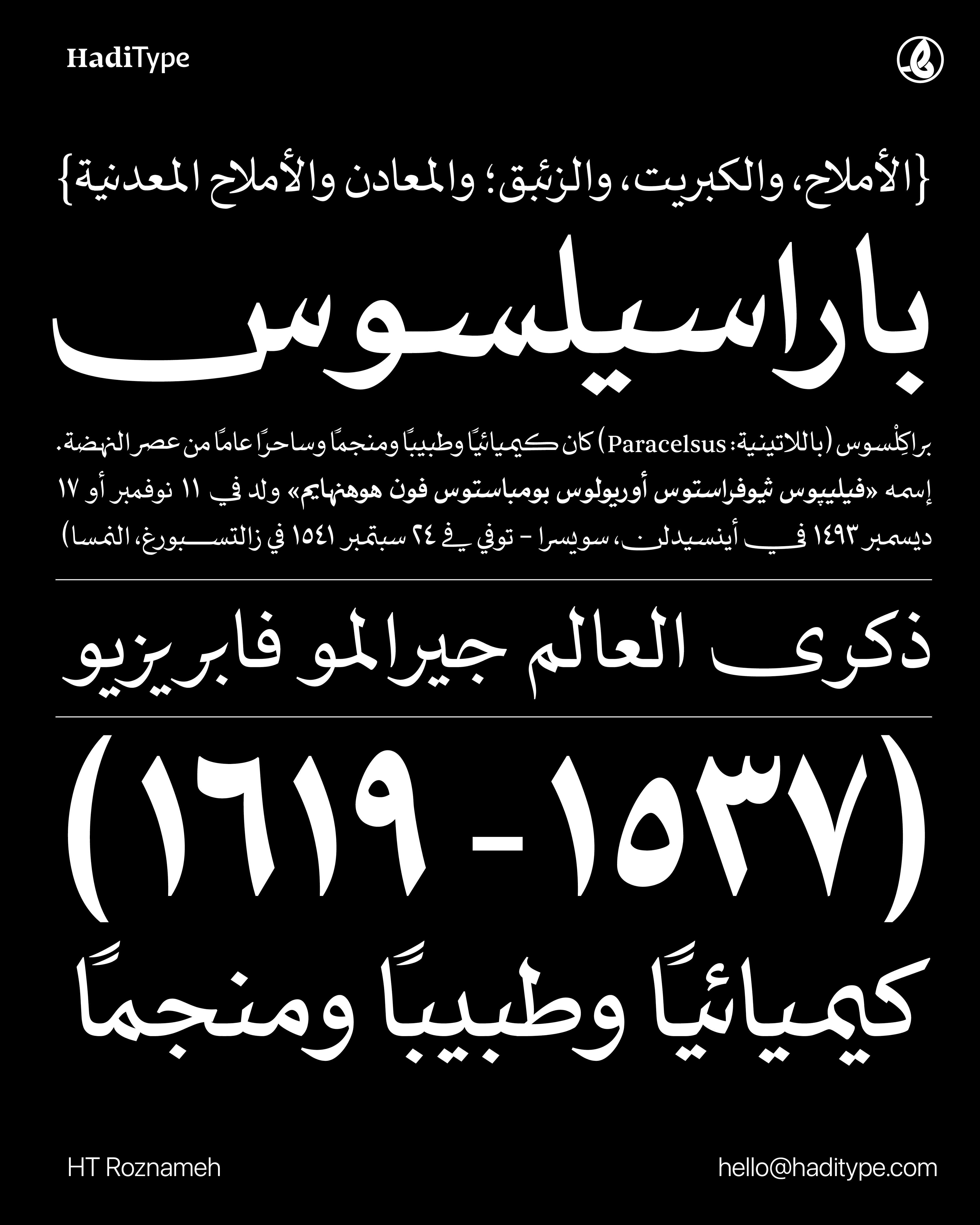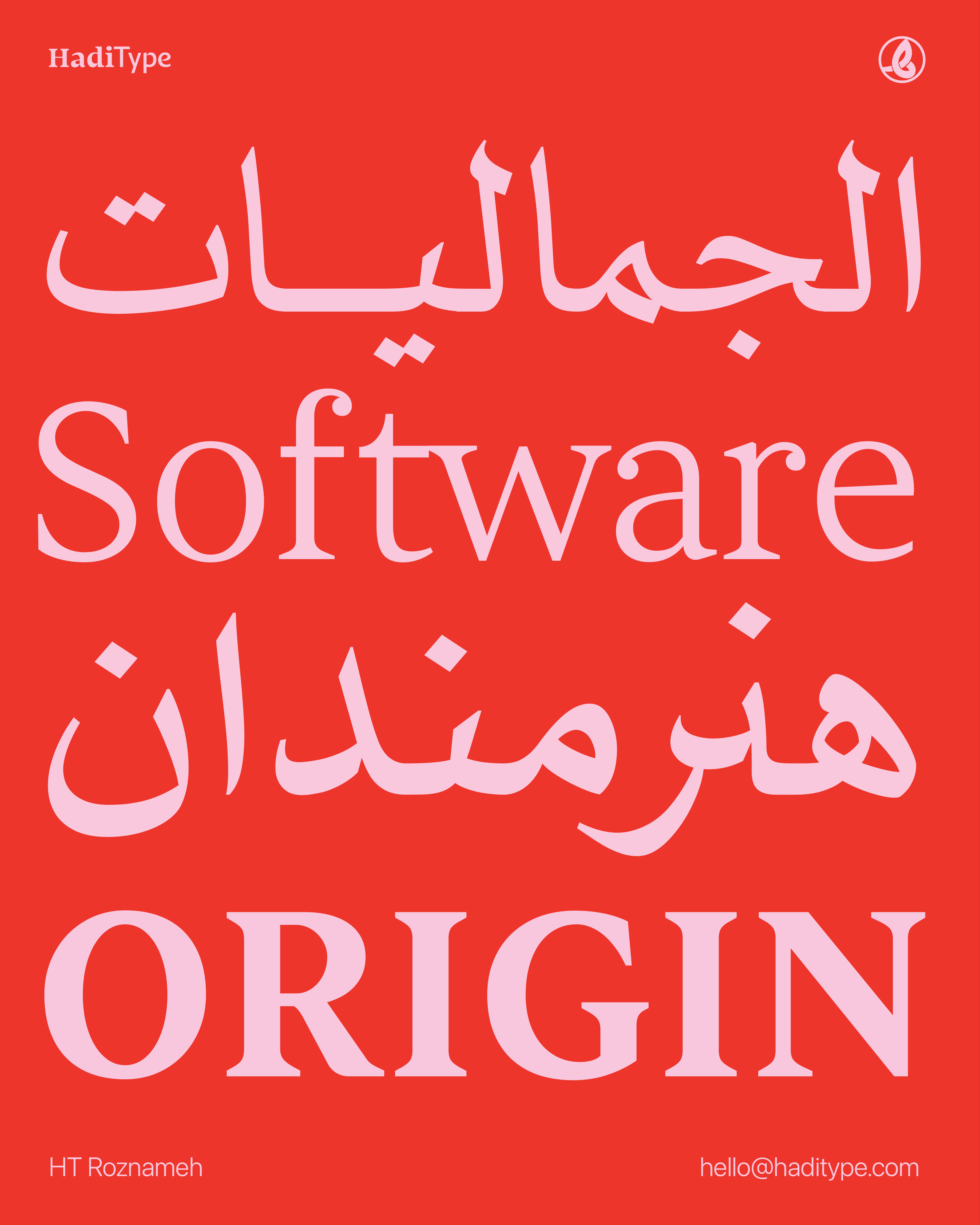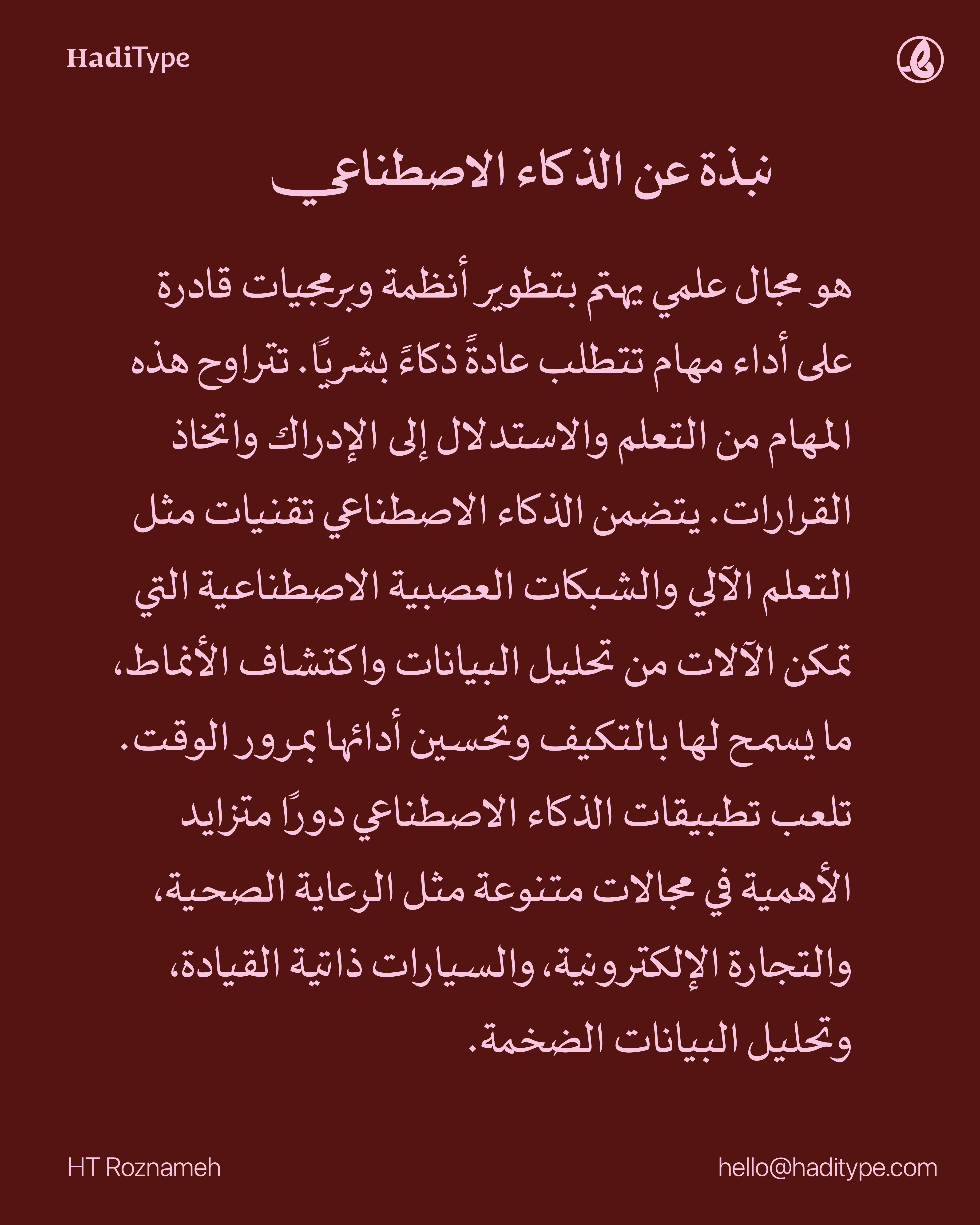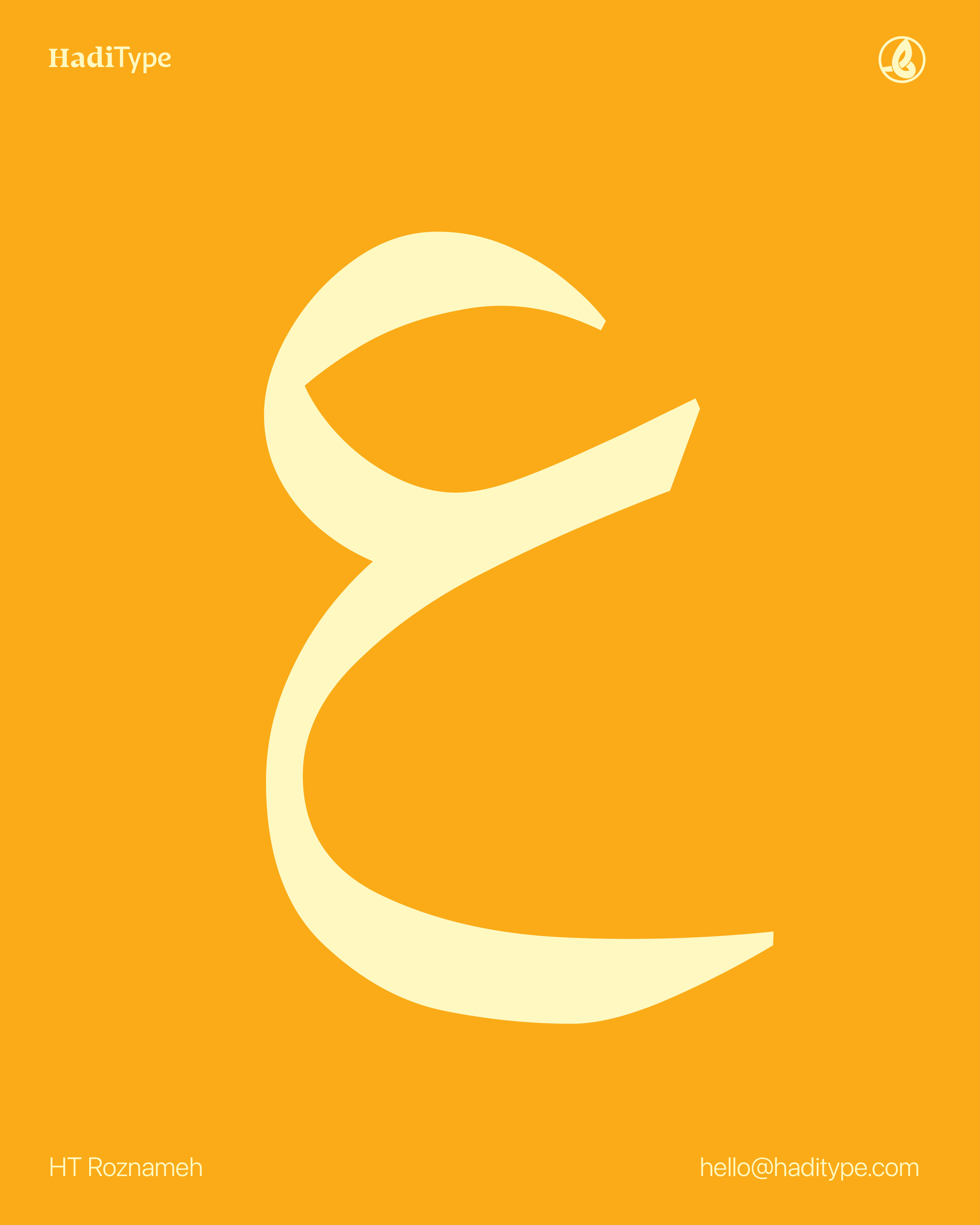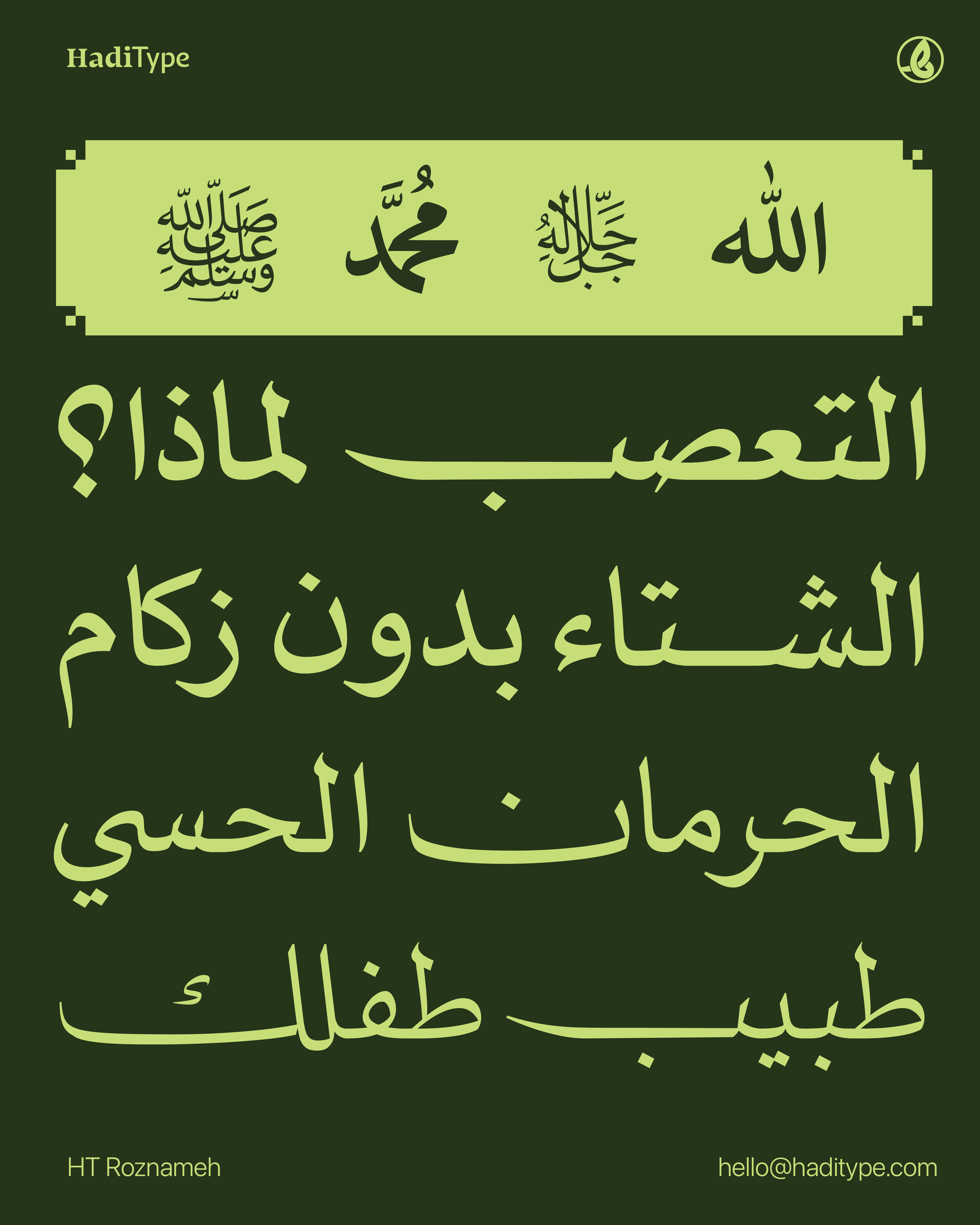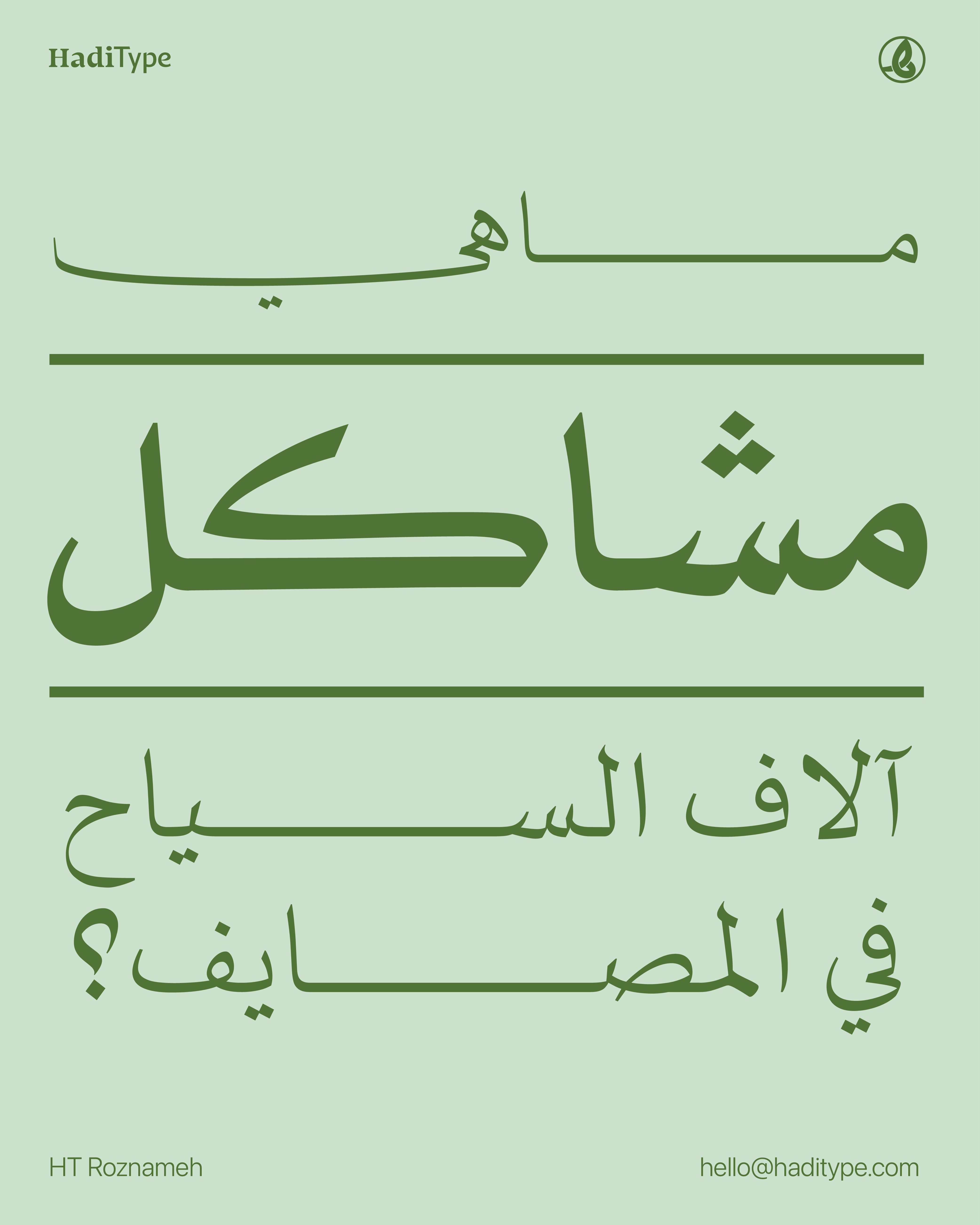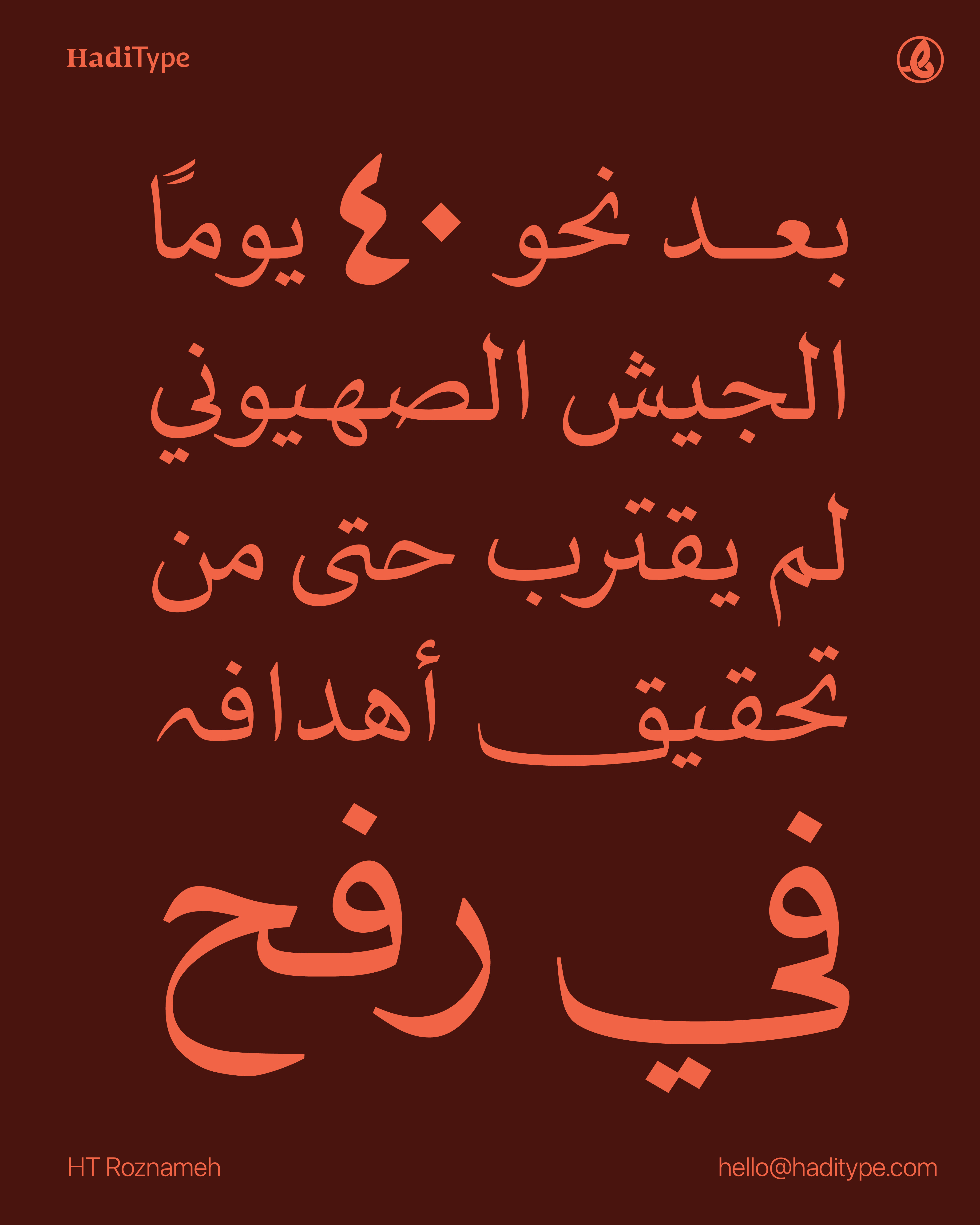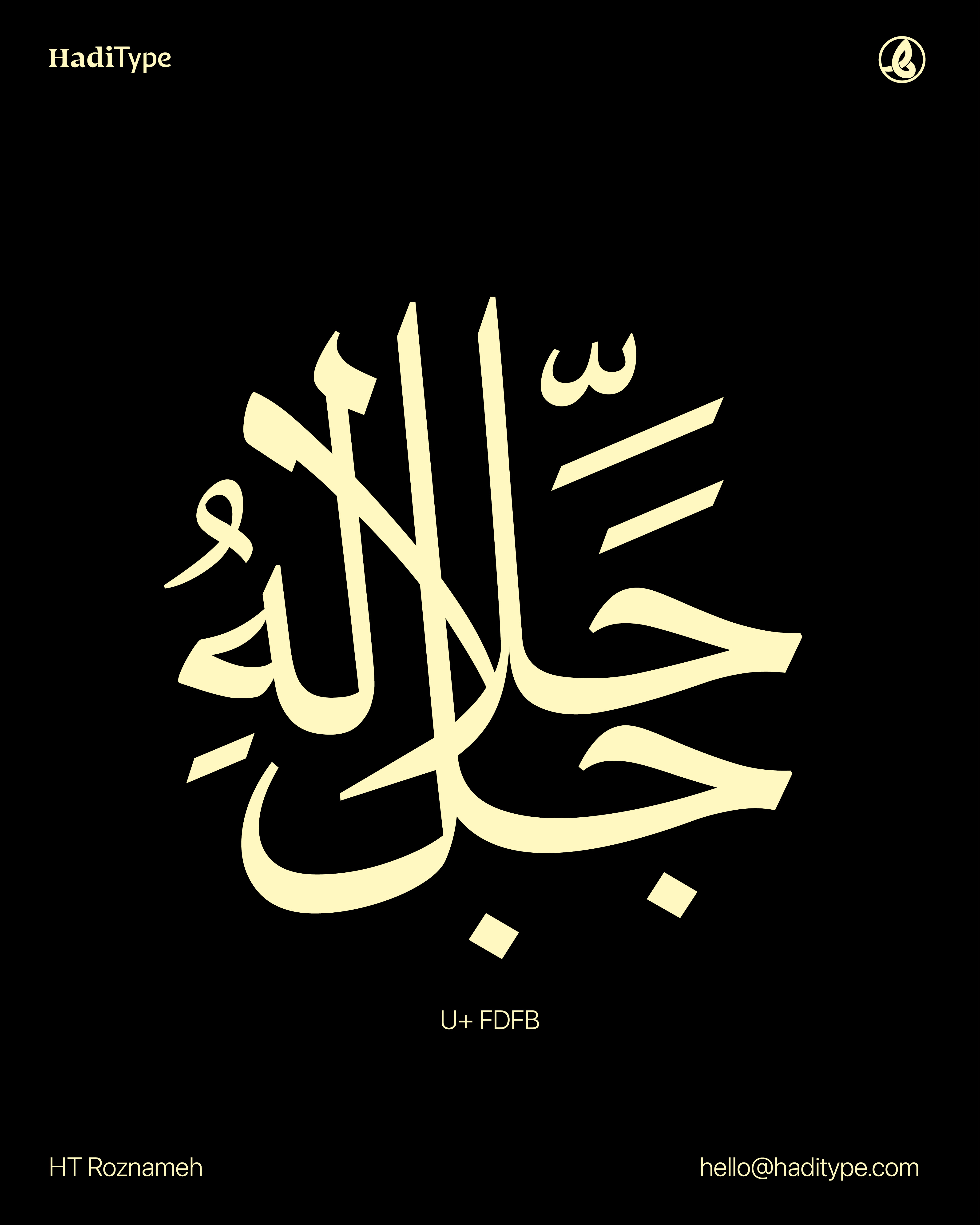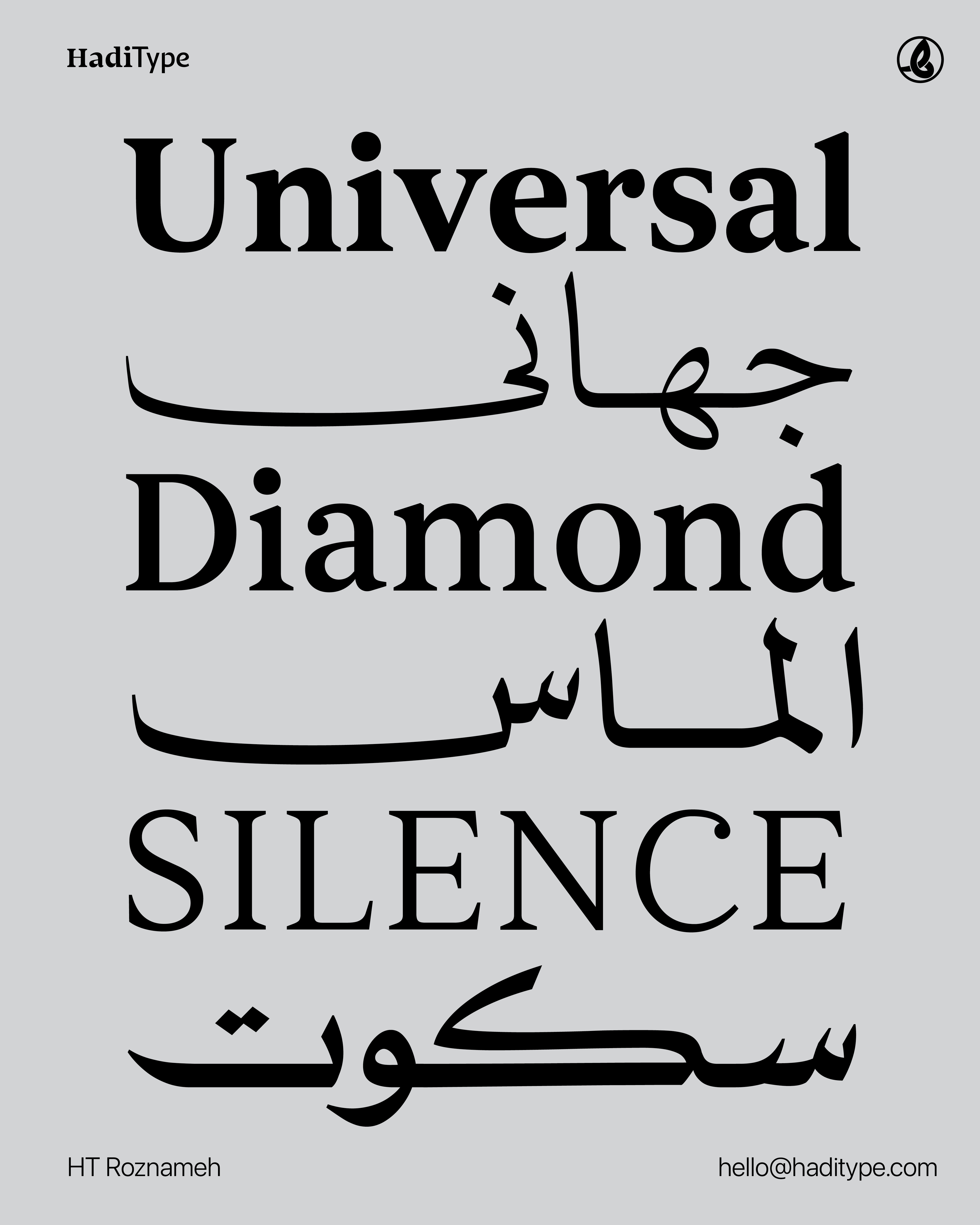
HT Roznameh
روزنامه هو خط مستوحى من خط النسخ التقليدي مع لمسة عصرية
يتميز بوجود تطويلات متغيرة ومركبات ديناميكية تمنحه طابعًا فريدًا.
HT Roznameh is a feature-rich, traditionally based Naskh typeface with a modern touch, variable swashes, and dynamic ligatures.
Supported Languages: Arabic, Persian, Urdu, North-African Arabic, Kurdî, and Turkish.
Designer: Muhammed Hadi